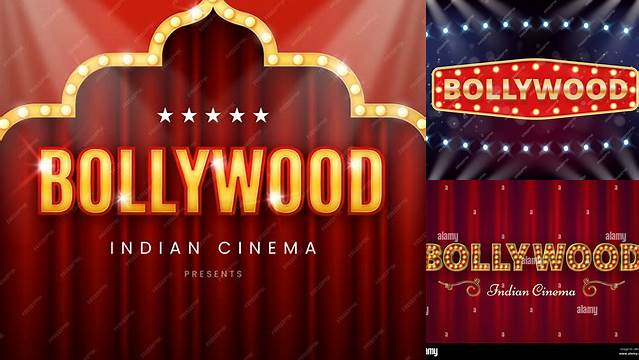
Unveiling The Iconic Fonts Of Classic Bollywood
Hey guys! Let's dive into the fascinating world of old Bollywood movie fonts! You know, those nostalgic, eye-catching typefaces that have graced the silver screen and etched themselves into our memories? We're talking about the fonts that screamed 'Bollywood' long before the internet or social media even existed. These fonts aren't just about letters; they're a crucial part of the visual storytelling, carrying the soul of the film. Think about it – the title sequences, the posters, the opening credits – they all used fonts to transport you to another world. Ready to explore the magic behind these timeless fonts? Let's go!
1. The Genesis of Bollywood Typography: A Historical Overview
Alright, let's rewind and take a peek at the historical backdrop of old Bollywood movie fonts. Before the digital age, everything was crafted by hand, often by skilled artisans and calligraphers. Imagine the precision, the patience, and the artistic flair needed to create those stunning title sequences! This wasn't just about choosing a font; it was about crafting a visual identity that perfectly captured the essence of the film. Early Bollywood films were heavily influenced by the aesthetics of the time, blending traditional Indian art with elements from Western cinema. The fonts reflected this fusion, often incorporating elaborate curves, bold serifs, and ornate details. The choice of font was crucial; it needed to convey the mood of the film, whether it was a romantic drama, an action-packed thriller, or a social commentary. Each film had its unique visual voice, a secret language understood by everyone who saw it. These fonts weren't just about aesthetics; they were about creating an experience, a visual prelude to the cinematic journey that was about to unfold. The fonts were a statement, a promise of the stories that awaited, and a reflection of the cultural tapestry of India itself. The creation of these fonts was often a collaborative process, involving directors, designers, and calligraphers, all working to bring the vision of the film to life. It was a time of craftsmanship, of slow art and a profound appreciation for the visual storytelling. The fonts were more than just a visual element; they were an integral part of the film's identity, its legacy, and its emotional impact.
2. Decoding the Characteristics of Classic Bollywood Fonts
Now, let's get into the nitty-gritty and decode the core characteristics of old Bollywood movie fonts. They're more than just pretty letters; they have distinct features that set them apart. One of the most noticeable aspects is the bold and dramatic style. Think strong, thick strokes, designed to grab your attention from a mile away. These fonts often feature exaggerated serifs – those little decorative strokes at the end of letters – which add a touch of elegance and flair. Another common trait is the use of elaborate ornamentation. You'll see flourishes, swirls, and decorative elements woven into the letters, adding a touch of visual richness and reflecting the cultural aesthetics of the time. The fonts often use a mix of styles, too, blending classic and modern influences. Many fonts had unique character shapes, adapted for the Indian script, or even incorporating both Hindi and English scripts, a blend of local culture and global influences. These fonts were made to be seen, made to shout their presence from the screen and attract viewers. They weren't meant to be subtle or understated; they were designed to make a statement, to convey a sense of grandeur, emotion, and the vibrant spirit of Indian cinema. They were an integral part of the film's personality, ensuring that audiences would remember each film, and that the fonts, like the music and the stars, became iconic. These fonts had to withstand the test of time and remain visually compelling, and they certainly did. So next time you watch an old Bollywood movie, take a closer look at the fonts. You'll find that they carry a story of their own.
3. Popular Font Styles Used in Golden Age Bollywood Cinema
Time to explore some popular font styles that were the real stars in old Bollywood movie fonts during the Golden Age. The first one we'll look at is a bold, serif style, often used in movie titles and posters. Think of the classic 'Rajshri Productions' or 'Yash Raj Films' logos – those fonts are instantly recognizable and represent the elegance and grandeur of that era. Another popular style was a hand-drawn, script font, often used in romantic films. Imagine flowing, cursive lettering that perfectly captured the emotional depth of the love stories. We can't forget the blocky, imposing fonts used in action and drama films. These fonts were created to express power, excitement and anticipation of drama. The fonts had to convey the emotions associated with each film, providing the audience with an early glimpse of the movie's genre. Many fonts were also stylized, using cultural imagery and motifs to represent the film's central theme. The font styles helped create a visual identity for the film. The impact of these fonts goes beyond mere aesthetics; they were critical to creating the film's identity, influencing the perception of the film by the audience, and staying in their memories long after the credits rolled. They’re an essential part of the nostalgic experience that comes with watching these classic movies.
4. The Role of Calligraphy and Hand-Lettering in Early Bollywood
Let’s shine a light on the critical role of calligraphy and hand-lettering when we talk about old Bollywood movie fonts. Before the digital revolution, everything was made by hand, and calligraphers were the true font masters. They possessed amazing artistic skills, and were experts in creating those mesmerizing title sequences and posters. Hand-lettering allowed for a level of creativity and uniqueness impossible to replicate with modern digital fonts. These calligraphers would craft each letter with meticulous precision, bringing a personal touch to every project. They used a variety of tools like brushes, pens, and inks to achieve their artistic vision. The fonts created weren’t just about readability; they were about expressing the mood, the emotion, and the cultural essence of the film. Calligraphy provided a sense of artistry and individuality that could create a unique visual voice for each movie. This work was slow, demanding patience and skill, but it allowed for a level of customization and creativity that made each film stand out. The calligraphers were unsung heroes, the silent artists behind the scenes who brought their artistic talents to create the visual identity of these films. They ensured the movie’s title, credits, and other graphical elements were of the highest quality, setting the stage for the viewers’ experience and making the film more unforgettable. The handwritten fonts were a testament to the value placed on artistry, craftsmanship, and individuality in early Bollywood. Each stroke of the pen became part of a movie’s history, a memory of a past era.
5. Font Selection and its Impact on Movie Aesthetics and Branding
Let's discuss how the font selection greatly impacts the aesthetics and branding of old Bollywood movie fonts. The choice of a font wasn't accidental; it was a deliberate act of creating a visual identity. The font chosen had to complement the film's genre, tone, and overall style. For romantic dramas, designers usually chose elegant, flowing scripts that evoked emotion and charm. For action thrillers, they might opt for bold, impactful fonts that showcased power and intensity. The right font was like the perfect accessory, enhancing the film's visual appeal. The font wasn't just about looks; it conveyed the movie's identity to the audience. The font often became synonymous with the film, creating recognition and recall. The visual style had to set the stage for the story to come, setting the viewers’ expectations. Font selection affected the poster, promotional materials, and opening credits, creating a consistent branding across all platforms. It could tell the audience a lot about the movie, from the plot to the characters to its overall atmosphere. The fonts had a branding impact, creating an emotional connection between the audience and the film. The strategic use of fonts established the film's visual identity, shaping the viewer's perception, and making the movie stand out in a competitive environment. The font selection ensured the film had a lasting impression, and would stay with viewers long after the credits rolled.
6. Iconic Bollywood Movies and Their Signature Font Styles
Now, let's explore some of the most iconic Bollywood movies and their signature old Bollywood movie fonts. Some movies became famous not only for their stories and stars but also for their distinct typography. The first example is “Mughal-e-Azam,” renowned for its classic, regal font, which reflected the film's historical setting. The elegant font conveyed the film's grand scale and historical significance, taking viewers to another era. Another example is “Sholay,” and its bold, action-packed font, which mirrored the movie's adventurous and thrilling tone. The iconic font helped to cement the film's place in cinema history. Different fonts were also created for movies by specific production houses, becoming a hallmark. These films showcase how crucial the choice of font is to the film’s identity, creating a lasting impression on the viewers. These movies made the font choices more than just aesthetics – they were an integral part of the cinematic experience. They highlight how fonts contribute to the film's legacy, with the typography still recognizable even years later. Each movie had a distinct font to reflect the emotions and stories being told, connecting with audiences on a deep emotional level. The fonts chosen had the potential to make the film instantly recognizable, a vital aspect of branding and recall. The choice of these fonts helped set the stage for these movies, attracting viewers with the promise of the stories to come.
7. The Evolution of Font Technology: From Handcrafting to Digitalization
Let's dig into the evolution of font technology, and how it impacted old Bollywood movie fonts. We begin with the era of handcrafting, where calligraphers spent hours carefully designing and creating fonts by hand, producing distinct letters with their artistic skills. This process was time-consuming and required exceptional skill, but it gave the films a unique, handcrafted appearance that's now so nostalgic. Fast forward to the digital revolution: the emergence of computers and specialized design software transformed how fonts were created and used. Designers gained the ability to create and modify fonts more quickly, and to experiment with new design approaches. Digital fonts became more accessible, reducing the time and effort required to create the visual identity of the film. Despite the advent of digital technology, the legacy of handcrafted fonts continues to inspire designers today. The best of both worlds exists as designers use digital tools to emulate the look and feel of the classic handmade fonts. This fusion of old and new techniques has resulted in the evolution of Bollywood movie fonts. The industry continues to honor the visual styles of the past while embracing the advancements of modern technology. This combination of techniques helps to keep the aesthetic qualities and artistry of classic Bollywood, while at the same time, it brings greater efficiency and more versatility.
8. Understanding the Copyright and Licensing of Bollywood Fonts
Let's talk about the world of copyright and licensing when it comes to old Bollywood movie fonts. As you may know, fonts are intellectual property, just like a song or a movie script. They're protected by copyright, which means you usually need permission to use them. This is why, if you're a designer or filmmaker wanting to use a particular font, you need to get a license, which is like a permission slip. This license gives you the right to use the font for a specific purpose, like a movie title or a poster. Understanding the copyright is critical because using fonts without permission can lead to legal troubles. You could be accused of copyright infringement, which can involve financial penalties and other consequences. The process of obtaining a license depends on the font and the licensing company, and might involve fees. As a general rule, if the font is commercially available, it comes with clear licensing terms that describe how you can use it. If you’re using a custom-designed font, the terms will be set by the font designer or the copyright holder. Always respect copyright and licensing rules to avoid legal issues and support the work of font designers. It ensures fairness and helps maintain the creative ecosystem that makes great design possible. It also helps to ensure the preservation of creativity in design.
9. Tips for Identifying and Researching Old Bollywood Fonts
Ready to become a font detective? Let's get into some tips for identifying and researching old Bollywood movie fonts. Start by taking a close look at the titles, posters, and credits of classic Bollywood films. Pay close attention to the letter shapes, the serifs, and any unique features. Use online resources: there are websites and forums devoted to typography. Search for “Bollywood fonts” or “retro fonts” to discover matching styles and possible names. Another helpful tool is font identification websites. Upload an image of the font, and the website will try to match it with existing fonts. Check out books, magazines, and online archives dedicated to Bollywood. You may find insights into the history of the fonts and the designers. When researching, remember that many fonts were custom-designed, so they may not be available for commercial use. If you can’t find the exact font, consider finding similar ones, or reaching out to font designers or design enthusiasts for guidance. The process can be fun, challenging, and rewarding as you uncover the stories behind the visual identities of your favorite Bollywood films. Remember, identifying fonts is like solving a puzzle. Every detail, every curve, and every serif has the potential to reveal something new. Enjoy the hunt!
10. The Influence of Bollywood Fonts on Contemporary Design
Let's talk about how old Bollywood movie fonts still influence contemporary design today. The fonts of classic Bollywood films have left an enduring mark on the world of design, influencing everything from graphic design to branding. Many contemporary designers and artists are inspired by the fonts and the visual aesthetic of old Bollywood. They often incorporate the boldness, the curves, and the elaborate details found in these classic fonts. Retro and vintage designs are especially popular, and Bollywood fonts are often used to create a sense of nostalgia and authenticity. You'll see these fonts in a variety of contexts, including movie posters, album covers, and product packaging. Designers are also creating new fonts inspired by classic Bollywood typography, keeping the tradition alive. In addition, Bollywood fonts have become a symbol of cultural identity, representing the vibrancy, emotion, and storytelling of Indian cinema. They're used in marketing and branding to attract the attention of an audience and to evoke feelings of nostalgia and the charm of a bygone era. Bollywood fonts are constantly evolving. Today's designers are using digital tools to create their own version of classic fonts. It demonstrates the lasting impact of Bollywood fonts, and how they have transformed to fit the evolving needs of modern design. This continuous influence is a tribute to the creativity and talent of the designers who created these memorable fonts.
11. How to Incorporate Bollywood-Inspired Fonts in Modern Projects
So, how can you incorporate old Bollywood movie fonts into your modern design projects? If you're working on a project that requires a touch of nostalgia, or a nod to Indian culture, Bollywood-inspired fonts can be a great choice. Start by looking for fonts that have the characteristic bold strokes, elaborate serifs, and decorative details that are commonly seen in classic Bollywood typography. You may also find fonts inspired by the style of Bollywood lettering. There are many digital fonts available for download. Consider the context of your project. Is it a movie poster, an album cover, or a website design? The font you choose needs to fit your project's tone. Bold fonts can work for titles, while more subtle variations can be used for body text. Experiment with different styles and combinations to find the look that best fits your needs. Also, consider using colors and graphic elements to complement your font choices. Think about the colors and styles commonly associated with Bollywood cinema. These might be vivid colors, decorative patterns, or striking imagery. Pay attention to spacing and layout to make sure your text is readable and visually appealing. Use these fonts in your projects to create a unique visual voice. Try creating new fonts inspired by classic Bollywood typography. Remember to respect copyright and licensing rules when using the fonts. By incorporating elements from classic Bollywood fonts, you can create a striking project that's engaging to the viewer and memorable.
12. The Nostalgic Appeal of Vintage Bollywood Typography
Let's delve into the nostalgic appeal of old Bollywood movie fonts. They're not just about the letters; they're about the emotions, memories, and the era that defined them. These fonts capture a sense of nostalgia that resonates with viewers. They remind us of simpler times, of the charm and glamour of classic Bollywood cinema. They create a sense of authenticity and a connection to the cultural heritage of India. The fonts are visual touchstones, evoking feelings of warmth, familiarity, and joy. They transport us to the world of classic movies, the unforgettable songs, and the iconic stars. The use of vintage fonts can also be a great way to capture attention. The fonts stand out because they're different from modern typefaces, allowing them to stand out and make an impression. Vintage typography can also add a unique touch to the design, and it can make a project more visually interesting. You'll see a trend in all kinds of design, from movie posters to album covers and websites. People appreciate the history and culture behind vintage fonts, and they help create a sense of storytelling, making projects more unique and appealing. The nostalgic appeal of these fonts helps connect audiences to the memories of the past.
13. Analyzing the Design Principles Behind Classic Bollywood Fonts
Let's analyze the design principles that created the power behind old Bollywood movie fonts. Boldness and Impact: many classic Bollywood fonts have bold strokes and a strong presence, ensuring they grab attention. Ornamentation and Detail: Many fonts feature elaborate serifs, flourishes, and decorative elements, adding a touch of flair and reflecting the artistic sensibilities of the time. Balance and Harmony: designers would skillfully blend elements to ensure balance and visual harmony, creating aesthetically pleasing compositions. Contrast and Emphasis: designers would carefully use contrast – such as size, color, and weight – to emphasize important elements and create visual interest. Legibility: the fonts were designed for readability from afar. The text had to be easy to read and understand, even on a large screen. Consistency and Cohesion: designers made sure that elements would have consistency, creating a cohesive look and feel. The goal was to create a visual experience that would engage viewers. The choice of each font became a creative choice, ensuring that the project, movie, or whatever it was would be unforgettable. These design principles have stood the test of time, influencing design practices across different media platforms. The design principles are a testament to the craftsmanship, talent, and attention to detail that made these fonts so unforgettable.
14. Comparing and Contrasting Bollywood Fonts with Other Regional Typography
Let's explore the art of comparing and contrasting old Bollywood movie fonts with fonts from other regional cultures. Bollywood fonts have distinct characteristics that set them apart from other regional typography styles. Compared to fonts from other areas, Bollywood fonts often exhibit a bold, dramatic style. You'll see thicker strokes, elaborate serifs, and ornate details that reflect the vibrancy of Indian cinema and the cultural heritage. In contrast, regional typography from other areas might showcase unique cultural influences. You might see different letter shapes, styles, and decorative elements that reflect local traditions, and artistic sensibilities. For instance, the fonts in South Indian cinema have a distinct visual style, and many regional fonts use local scripts and character sets, reflecting a wide range of linguistic and cultural diversity. Comparing these fonts will uncover the rich variety of typography. Each style reflects the cultural identity and artistic expression of its region. Exploring the diverse world of typography will highlight the unique qualities of Bollywood fonts. It will also reveal how typography reflects the cultural heritage and artistic expression of different regional traditions. Understanding these fonts will help us appreciate the richness and diversity of the visual landscape.
15. Famous Font Designers and Calligraphers of the Bollywood Era
Now, let's highlight the famous font designers and calligraphers who are the masters of the old Bollywood movie fonts era. These are the artists who created the iconic fonts, contributing to the visual identity of classic Bollywood films. We may not know their names, but their artistic contribution is immense. They crafted those unique typefaces, each stroke of the pen and each letter created to perfection. Their skills were the foundation of the captivating title sequences, the stunning posters, and the movie credits. Each designer had unique creative styles, using their skills to produce memorable fonts. Many font designers were influenced by the art and culture of the time, and incorporated the elements to create authentic designs. The names behind these works might be lost, but their legacy endures. These artists transformed letters into art, helping create a unique visual identity for each film. It is the combined effort of the filmmakers, designers and calligraphers that makes Bollywood iconic. These font designers and calligraphers created the fonts that remain timeless and evocative of an era. Their work continues to influence design, reminding us of the role of creativity and the power of visual communication.
16. The Influence of Indian Art and Culture on Bollywood Typography
Let's explore the profound influence of Indian art and culture on old Bollywood movie fonts. These fonts are not just about letters; they are a reflection of the rich artistic heritage. Bollywood fonts frequently incorporate elements drawn from Indian art and culture, including traditional motifs, patterns, and decorative styles. You’ll find the influences of ancient Indian art forms, such as Mughal miniature paintings, which were famous for their intricate detail and decorative patterns. Calligraphers and designers took inspiration from these forms to create beautiful, ornate fonts. Colors also play a key role, with the use of vibrant hues and symbolic colors commonly seen in Indian culture. The fonts convey the essence of India, combining beauty, emotion, and cultural identity. This integration is what helps to connect the audience to the film. This cultural influence makes the typography of Bollywood movies unique. The cultural heritage is visible, making these fonts instantly recognizable and meaningful for viewers. The blend of these cultural elements ensures the fonts' appeal to the viewer. By incorporating cultural references into the font styles, the designers also pay homage to the past, reinforcing their significance in cinema.
17. The Technical Aspects of Creating and Using Old Bollywood Fonts
Let's dive into the technical aspects of creating and using old Bollywood movie fonts. In the pre-digital era, the process of making fonts was much different. Creating these fonts involved hand-drawing, calligraphic skills, and a precise approach. Designers would sketch letterforms, create templates, and carefully trace and refine the characters. This process was slow, demanding, and required specialized tools like pens, brushes, and inks. When used, the fonts were manually applied to movie titles, posters, and other visual materials. It required a high level of skill and attention to detail. The rise of digital technology changed how these fonts were created. Designers began to use computer software to design, modify, and digitize the fonts. The digital revolution brought greater flexibility and the ability to scale and edit fonts efficiently. However, it also presented new challenges. Designers had to maintain the visual appeal of the original fonts while adapting them for use in digital media. This fusion of traditional handcrafting and modern techniques has become essential. Understanding these technical aspects helps us appreciate the skill and artistic effort that went into creating these fonts. It also highlights the evolution of technology, and the impact it has had on the visual landscape of cinema.
18. Preserving the Legacy: The Efforts to Digitize and Archive Bollywood Fonts
Let's focus on the efforts to preserve the legacy of old Bollywood movie fonts by digitizing and archiving them. Digitizing means converting these classic fonts into a digital format so they can be used in modern design projects. Many organizations are working to capture and archive the fonts. Digitization projects involve scanning existing fonts and creating digital versions, using specialized software to recreate the letterforms with great accuracy. Archiving ensures the fonts are preserved for future generations. Organizations are working to create online repositories, digital libraries, and other resources to make the fonts available. Efforts to digitize are essential to save the font history. This preserves the legacy of Bollywood typography, letting designers and filmmakers create and use these unique fonts. The project of archiving these fonts ensures their cultural importance. This work helps the community learn more about the fonts, sharing knowledge with designers and the public. These initiatives help maintain the legacy of Bollywood's visual identity, making sure the art remains relevant for generations. Support for these initiatives allows for continued preservation and adaptation of the fonts, enabling a vital link between the past and present.
19. Using Typography to Evoke Emotions in Bollywood Cinema
Let's explore how typography can evoke emotions in old Bollywood movie fonts. Typography is not just about aesthetics; it's also a powerful tool for storytelling. The designers of Bollywood movies used fonts to generate emotions from their audience. Choosing the right font created the proper atmosphere and mood for the film. In romantic movies, elegant scripts were often used to enhance feelings of love, tenderness, and nostalgia. For action movies, bold and impactful fonts evoked a sense of power, suspense, and anticipation. The choice of color, size, and style played an important role in conveying feelings. Typography can also add a layer of meaning to the storytelling, hinting at the theme. The fonts would convey feelings to the viewer, even before a single scene was shown. They contribute to the emotional journey of watching the film. The fonts' use in creating the emotional experience is a testament to the art of Bollywood cinema.
20. The Impact of Font Choices on Movie Marketing and Promotion
Let's talk about how the font choices impact the marketing and promotion of old Bollywood movie fonts. The fonts are not just elements of design; they are important components of marketing and branding. Movie marketers used font choices to create a memorable visual identity and to promote a film to its audience. They can be used in trailers, posters, and other promotional materials to give a glimpse of the film. A good font can create recognition with viewers. The font can communicate a lot, from the genre of the movie to its themes. Font choices can also influence the marketing campaign of the film. In addition, the fonts create an emotional connection. They can evoke a sense of nostalgia or excitement, encouraging people to watch the film. The correct font conveys a sense of quality, and adds to the credibility of a film. By using the right fonts, marketers can reach a wide audience. The strategic use of font choices in marketing is a testament to the importance of visual communication. This ensures the film's success, and that it becomes more popular and memorable.
21. Designing Your Own Bollywood-Inspired Font: A Step-by-Step Guide
Ready to channel your inner designer and create your own Bollywood-inspired font? Here's a step-by-step guide. First, research and gather inspiration. Analyze various old Bollywood movie fonts, noting the characteristics, styles, and design elements. Next, sketch your letterforms by hand. Start with a pencil, and experiment with different styles, serifs, and decorative details. Then, digitize your design, bringing your sketches to life. Use design software, creating vector shapes, and refining the individual letterforms. Then, refine and adjust your font, working on spacing, kerning, and balance. Finally, test and distribute your font, making sure it functions across different platforms, and can be used by designers, creators, and enthusiasts. Creating your own font needs creativity, patience, and skill. You will need to combine the traditional aesthetic of old Bollywood fonts with your own ideas. Remember to respect copyright regulations, and ensure your font can be used in different projects. The process is both exciting and challenging, and a lot of fun. When creating your own Bollywood-inspired font, you become a part of a creative legacy, contributing to the rich history of Indian cinema. Keep experimenting and have fun while learning about design!
22. The Connection Between Bollywood Fonts and Film Genres
Let's explore the connection between old Bollywood movie fonts and film genres. Font choices were not random. The fonts were chosen to suit the genre, helping to communicate the film's theme. For example, in romance films, designers used elegant scripts, to showcase the film's emotional depth. For action and thrillers, they used bold, imposing fonts to convey the themes of power and suspense. The choice of each font created a connection with the viewers, letting them know about the film's story. Historical dramas often employed fonts that reflected the era. Fantasy and adventure films used ornate, decorative fonts to depict the themes. The fonts added to the storytelling experience, contributing to the film's success. The typography added depth and meaning. This connection showcases the art and skill that went into the making of these films. Each font, color and shape has a purpose and is an expression of artistic freedom. The fonts become a reflection of the film. This is why font selection is so important in the world of Bollywood cinema.
23. Fonts and the Language of Bollywood: Hindi and Beyond
Let's discuss the fascinating connection between fonts and the language of Bollywood, including Hindi and other regional languages. The fonts in old Bollywood movie fonts often reflected the languages used in the films. The Hindi language is fundamental to Bollywood cinema, so fonts had to be created to represent its unique characters. Many designers used Hindi fonts, to show the beauty of the language. The designers paid close attention to the different writing styles of the languages, creating different characters for each. Bollywood also embraces the linguistic diversity of India, with films made in various regional languages. The fonts created reflect this diversity, with different writing styles adapted for each language. The fonts used in these films reflected the culture and identity of the language. They enhance the visual experience and make the films more accessible to viewers. This emphasis on language creates an inclusive experience. The fonts show respect and recognition for the many languages that make up Bollywood. In this way, the fonts contribute to the cultural identity of Bollywood cinema, showing its diverse storytelling and its capacity to reach audiences throughout India and beyond.
24. The Influence of Bollywood Fonts on Graphic Design and Branding Trends
Let's talk about how the influence of old Bollywood movie fonts has shaped graphic design and branding trends. These fonts have a timeless appeal and have left a lasting impact on the world of graphic design, and their influence is clearly visible in various trends. Retro design has been gaining attention, and Bollywood fonts are often used in designs for posters, logos, and other marketing materials. They bring nostalgia and authenticity, capturing the attention of viewers. The blend of modern and classic elements is a design trend, with designers incorporating Bollywood font features into modern designs. This style is used for a variety of purposes, and gives designers a unique visual identity. The use of fonts in packaging, advertising, and website design demonstrates their influence on branding trends. The fonts make projects distinctive, which increases their popularity with viewers. Bollywood fonts continue to influence the design world. Their enduring legacy highlights their importance in shaping visual communication and the evolving design landscape. The fonts add a distinctive visual identity, reflecting the cinematic heritage and influencing the trends that define contemporary branding and design.
25. Collecting and Appreciating Bollywood Font Ephemera: Posters and More
Let's explore the world of collecting and appreciating old Bollywood movie fonts through posters and other font ephemera. Posters and other advertising materials are a treasure trove for font enthusiasts. Collecting these items is more than a hobby; it's a way to preserve the history of cinema and typography. Collectors can find the fonts in film posters, title sequences, promotional materials, and other ephemera. Each item is like a time capsule, showing the creative work of the fonts, and the art. The collecting of these items is a way to value the cultural significance of the fonts and their contribution to the visual identity of these films. Collectors appreciate the beauty, detail, and the cultural relevance of these materials. The availability of resources allows collectors to find, study, and share their knowledge. The collecting of font ephemera is also a way to support the work of designers, artists, and studios. By collecting and sharing knowledge, enthusiasts celebrate the art, culture, and the visual legacy of Bollywood cinema. The work highlights the long-lasting influence of these fonts, and how they continue to inspire creativity.
26. Bollywood Movie Fonts in the Digital Age: Challenges and Adaptations
Let's focus on the challenges and adaptations of old Bollywood movie fonts in the digital age. Digital technology transformed how fonts are created and used. Designers now face the challenge of adapting the features of classic fonts for digital use. Digital environments pose their own challenges. Creating fonts for digital use requires adjusting the design for different screen sizes and resolutions. This ensures the font remains clear and readable across different platforms. Designers also have to deal with file formats, software compatibility, and licensing issues. Despite these challenges, the digital world offers opportunities for creativity. Designers can use modern software to create new digital fonts that retain the feel of old Bollywood fonts. This blend of old and new is what makes these fonts timeless. The digital age opens new doors for innovation and experimentation. Designers continue to work to adapt and reimagine these classic fonts, helping the legacy of Bollywood cinema continue. These adjustments make sure these fonts can be used in contemporary projects. The digital era offers both challenges and opportunities for innovation, guaranteeing that the visual legacy of Bollywood lives on for generations.
27. The Future of Bollywood Typography: Trends and Predictions
Let's look at the trends and predictions for the future of Bollywood typography. Designers are using technological innovation to create and recreate old Bollywood movie fonts. The future of fonts will involve even more sophisticated digital technology. Trends that highlight the creative blend of innovation and design will continue. There's a growing focus on diversity and inclusion. Designers are working to create fonts that represent the different cultures and languages. These trends show how dynamic the design field is. Designers are also working to create fonts that are accessible to all users. The future of Bollywood typography will be shaped by technology and design. The trends point toward a creative and collaborative future for Bollywood typography. They represent the evolution of visual communication, and the constant quest to improve design to reflect modern values. The focus on technology, diversity, and accessibility will help shape the future, and ensure that Bollywood typography remains a dynamic force in visual communication.
28. The Art of Blending Modern and Vintage Styles with Bollywood Fonts
Let's look at the art of blending modern and vintage styles with old Bollywood movie fonts. This creative practice is a way to create unique and visually captivating designs. This fusion can create something innovative and attractive. One way to achieve this is to combine the distinctive traits of the Bollywood fonts with modern design principles. Try using the classic bold letterforms of the fonts, and adding them to a minimalistic layout, producing a contrast. You can use color, texture, and other design components to add depth to the design. Incorporating the old Bollywood fonts in packaging and branding offers a way to make a project stand out from others. These projects evoke a sense of nostalgia, or create a modern twist. Blending modern and vintage styles also allows you to reflect different aspects of culture and identity. The ability to blend these styles demonstrates the lasting power of Bollywood fonts, and their adaptability for different designs. Blending styles requires an understanding of design and innovation. The fusion creates a lasting impact, and celebrates the beauty of both the old and the new.
29. Resources and Tools for Working with Bollywood-Inspired Fonts
Let's look at the resources and tools you can use to work with old Bollywood movie fonts. There are many resources available for designers, creators, and font enthusiasts to find and use Bollywood-inspired fonts. You can begin by searching for font resources like FontSquirrel, Google Fonts, and Behance. These platforms provide a wide range of fonts, including both original and inspired designs. Type design software like Adobe Fonts and FontLab is another helpful resource. You can use these tools to find, create, and customize your own fonts. Font identification tools such as WhatTheFont and Fontspring Matcherator will help you determine which font styles you like. Researching the history of fonts can also be beneficial. Many designers and researchers offer articles, books, and webinars. You can use these resources to find information on the history, and cultural significance of Bollywood fonts. There are also online communities for design, typography, and Bollywood cinema. These include forums, social media groups, and websites where you can get inspiration, share knowledge, and connect with other enthusiasts. By using these resources, you can expand your knowledge and creativity, and create your own visuals.
30. Celebrating the Legacy: The Enduring Impact of Bollywood Fonts
Let's conclude by celebrating the legacy and the enduring impact of old Bollywood movie fonts. These fonts have significantly impacted the world of cinema, design, and culture. They continue to inspire designers and viewers worldwide, and have become synonymous with Bollywood cinema. Their impact is visible in various aspects of modern design. These fonts have become a cultural icon. They remind us of the creativity, skill, and effort of the designers, calligraphers, and filmmakers. The legacy continues to flourish, inspiring and influencing new artists, and new generations of creators. They serve as a reminder of the power of art and design. Bollywood fonts represent India's rich cinematic heritage, reminding us of the beauty and cultural relevance of these timeless fonts. The fonts continue to inspire and inform, showing us how design and art influence our lives. The impact showcases the importance of these fonts in the world of design, showing the beauty of creativity and their lasting presence.